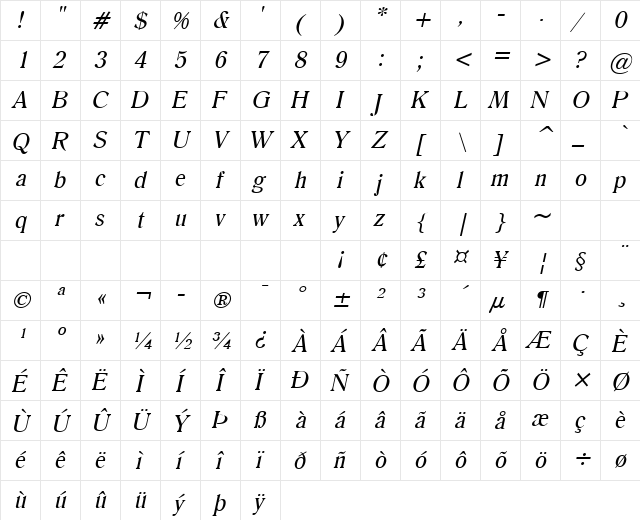
Roomy Italic Font Preview
Roomy Italic
Roomy Italic Font Details
Design Context for Roomy Typeface
Roomy offers clean, dependable letterforms without strong stylistic allegiance, making it a practical choice for designers who need flexibility. The slanted form adds forward momentum and visual energy.
Pro Tip: Use Roomy for emphasis, pull quotes, and subheadings where its slanted energy can add rhythm to the layout.